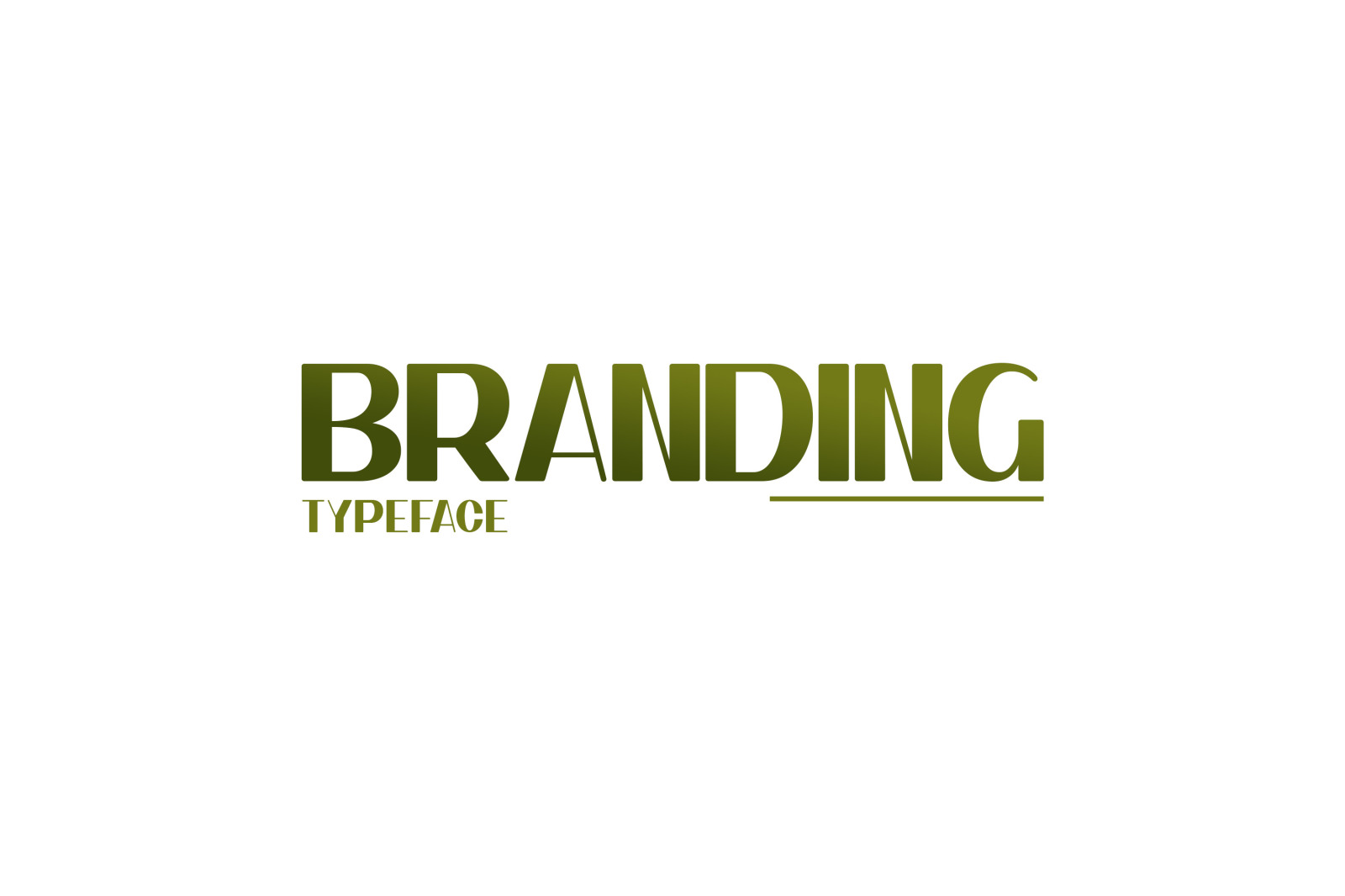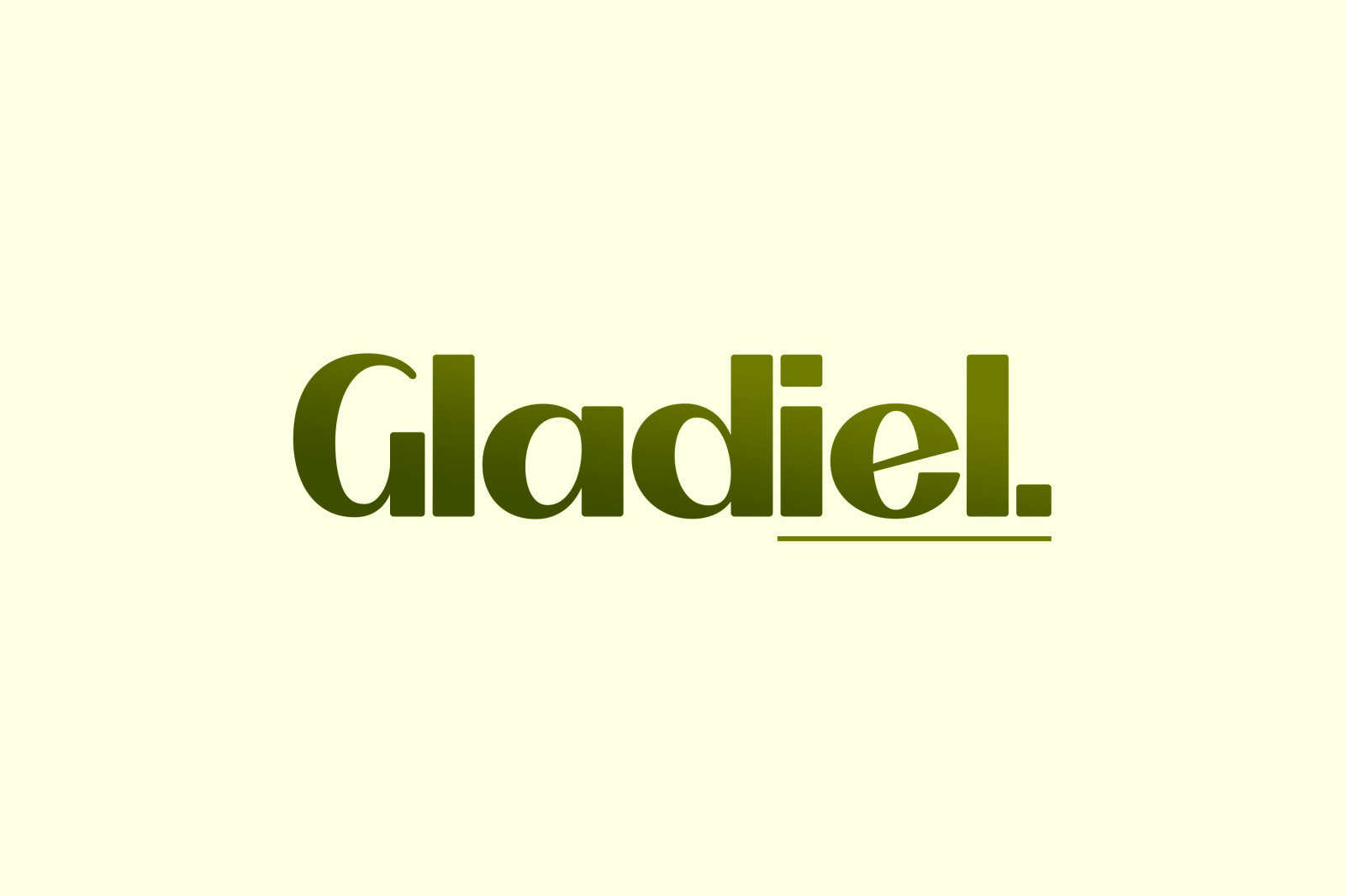
Gladiel Font
Gladiel Font has a unique aesthetic beauty that makes it ideal for glitzy headlines, branding, logotypes, and display applications. It can be used to make claims about luxury, fashion, and style. This font can also be used to create eye-catching logos, promotional materials, and marketing graphics that will pique the attention of your visitors.
It looks fantastic on racing posters, automotive, t-shirts, children's cards, and a variety of other products.It's a highly flexible typeface that fits well in both large and small sizes.